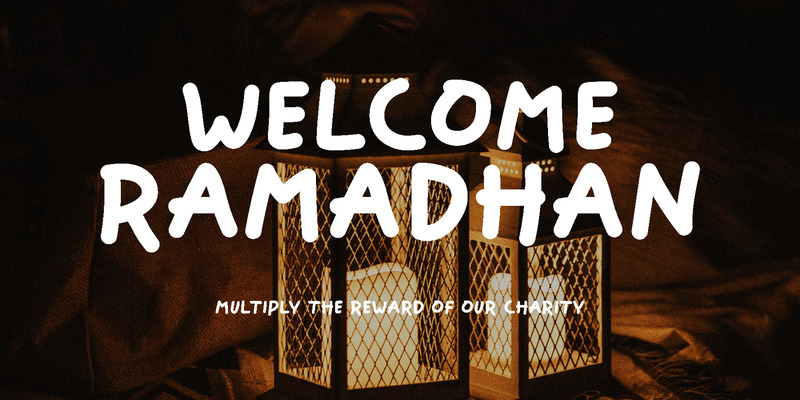
Yukpuasa - Modern Display Font
Introducing **Yukpuasa**, a simple and unique display font.
So perfect for you who needs a typeface for logo designs, magazine, social media, brochure, and many more.
**Features**
+ Uppercase
+ Lowercase
+ Punctuation
+ Numerals